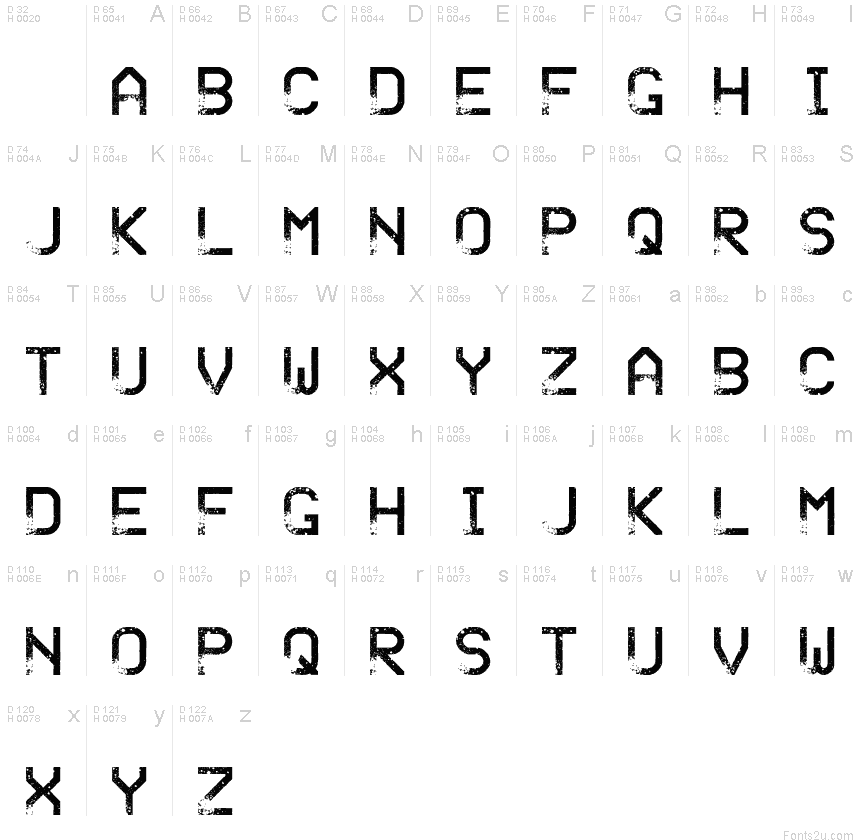
Sandy Ravage by Chi Media Fonts is a free eroded techno display font with broad capitals. Its geometric skeleton is disrupted by dense speckling and scraped patches concentrated along the lower edges. Rounded bowls soften the otherwise squared construction.
The lettering suits underground music and streetwear audiences drawn to distressed industrial graphics. Album covers and gig posters can use its chipped surface to echo photocopied art or worn paint, and game title screens gain a damaged futuristic edge. It is strongest when the type must look weathered and confrontational.
Sandy Ravage Regular is a font by chi media fonts, designed by chris vile in 2012.